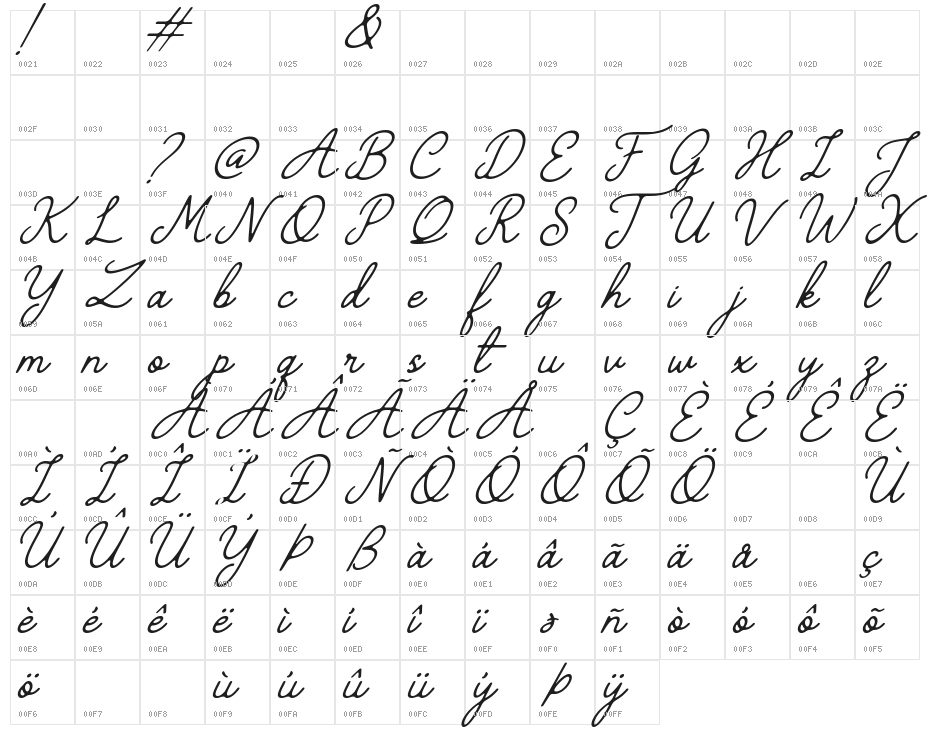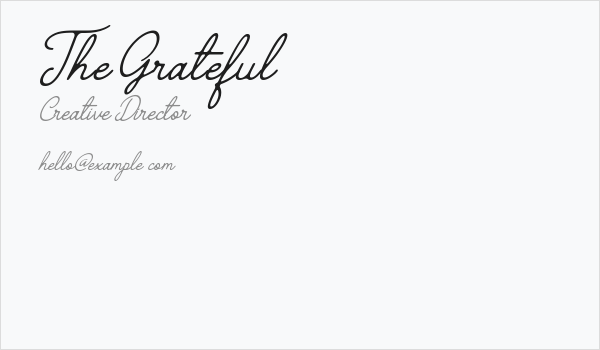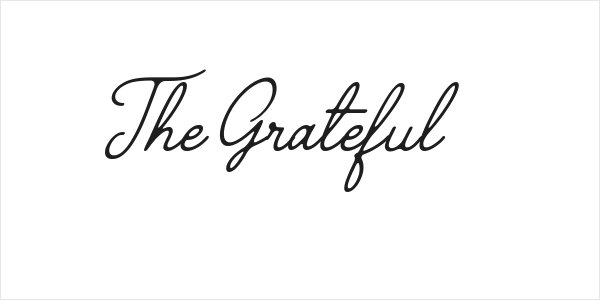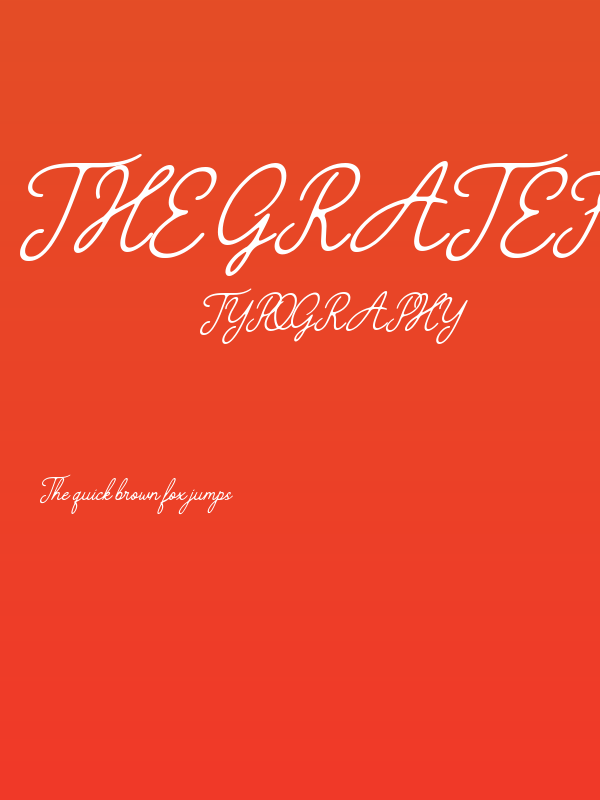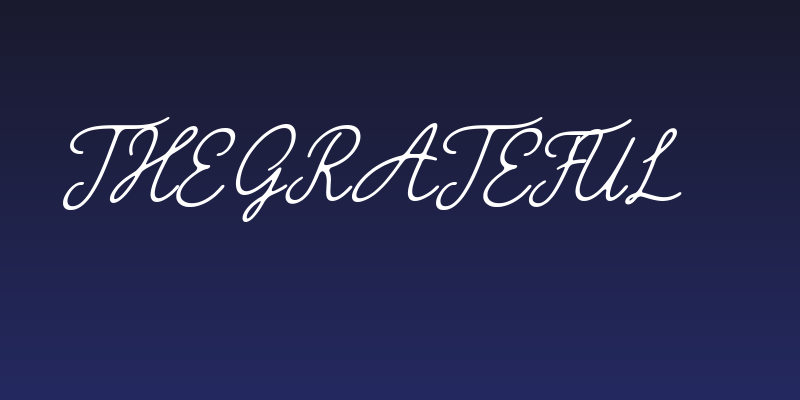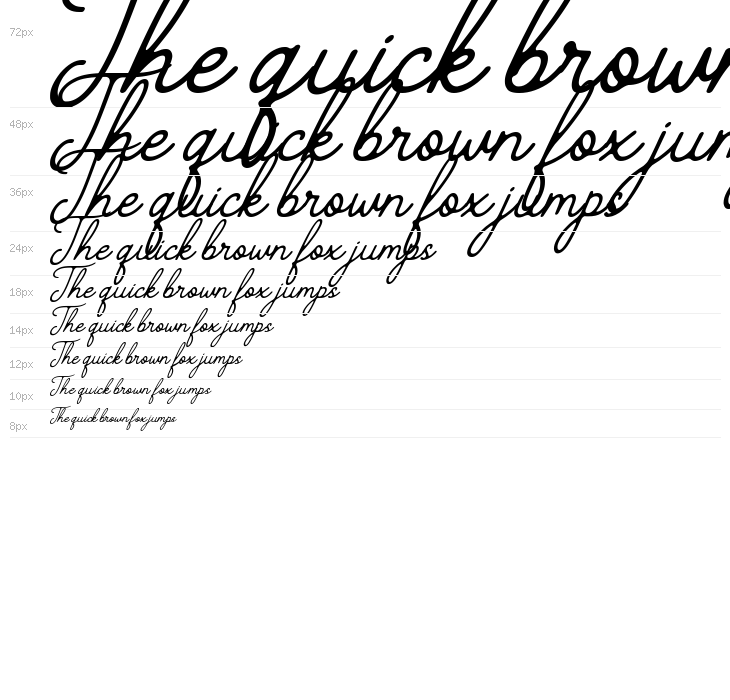
The Grateful 4 Font
The Grateful 4 Description
This font features a flowing, cursive style with elegant loops and swashes, reminiscent of traditional calligraphy. The uppercase letters are slightly more ornate, with extended flourishes that add a touch of sophistication. The lowercase letters maintain a consistent flow, enhancing readability while preserving the decorative nature. The numerals and special characters are designed to match the overall script style, ensuring a cohesive look across all text. The font's delicate lines and graceful curves make it suitable for projects that require a personal or artistic touch.
| Proposed Projects | Ideal for wedding invitations, greeting cards, personal branding, and artistic projects. |